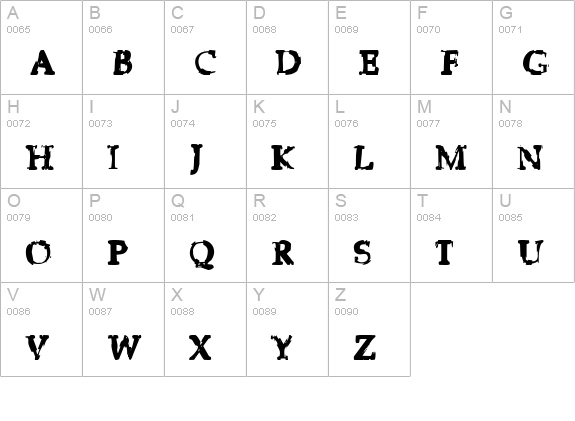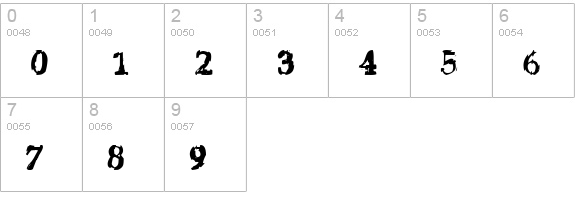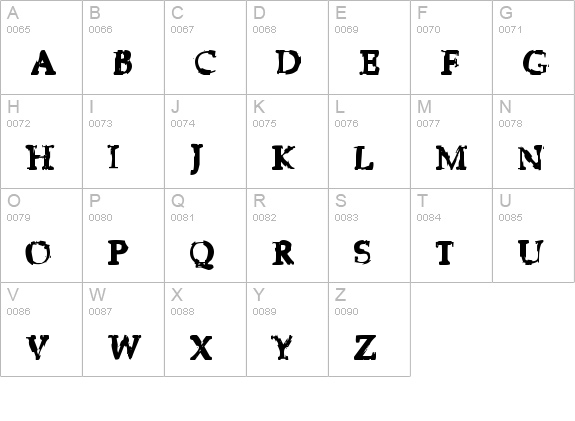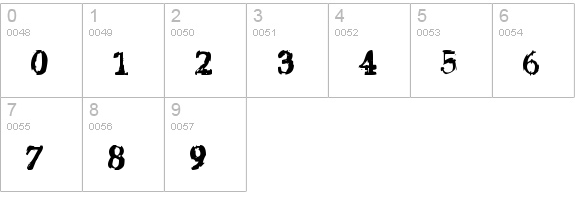
Introducing the edgy and rebellious Strip Club Motion Sickness grunge deluxe font! This font exudes a raw and gritty vibe, perfect for adding a touch of urban decay to your designs. With its jagged edges and distressed look, this font captures the essence of underground grunge culture. But the best part? It's absolutely free to download at FontsMarket.com! That's right, you can get your hands on this unique and eye-catching font without spending a dime. Whether you're working on a poster, album cover, or any other project that calls for a touch of grunge, Strip Club Motion Sickness font is sure to make a bold statement. Don't miss out on this opportunity to add a dose of rebellious energy to your designs. Download Strip Club Motion Sickness grunge deluxe font today and let your creativity run wild!